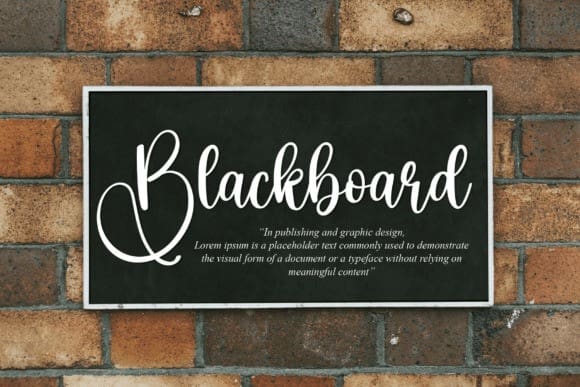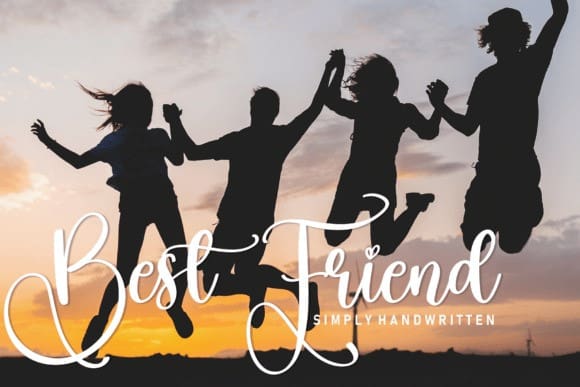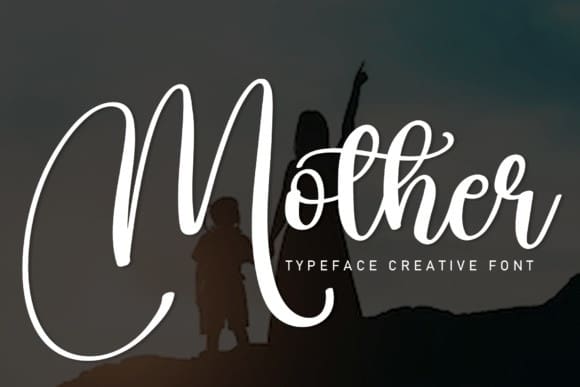
Mother Style Script Font
Mother Style Script Font is a stylish and casual handwritten font. Use it for wall displays, wedding invitations, social media posts, logos, advertisements, product packaging, product designs, labels, photography, watermarks, invitations, stationery, and any project that requires impressive typography.